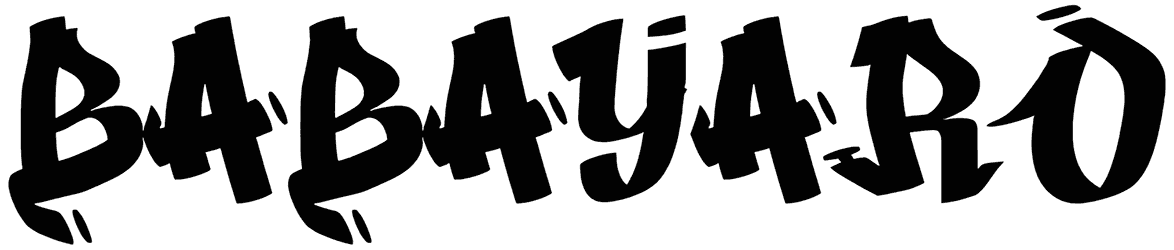
Babayaro Font
Street posters, digital banners, flyers, stickers, or social media posts would be the best possible field for utilizing a marvelous script font the such as the Babayaro that comes with chunky letters.
Since this all-caps graffiti font has sharp edges, it can easily provoke a vibe of momentum, jauntiness, grunge, or exoticism in the audience’s minds and easily persuades them to follow all of your creative ideas. In addition, don’t forget to visit the RB archive for more products.